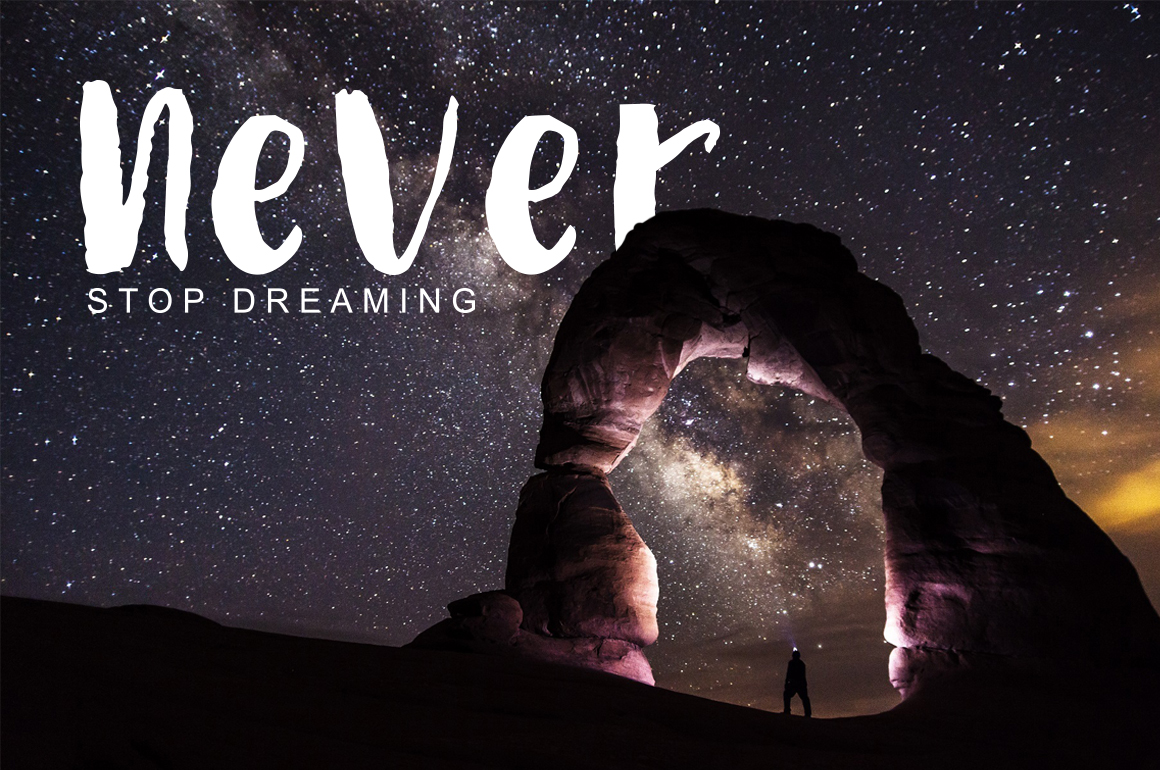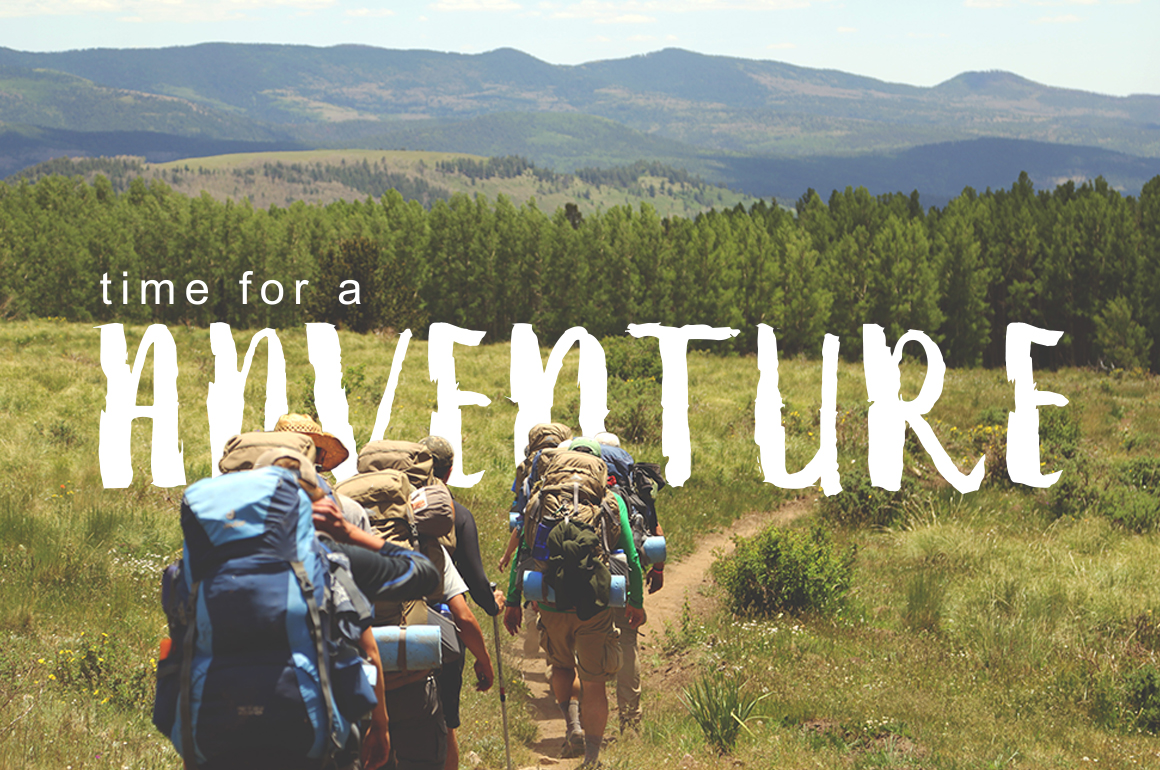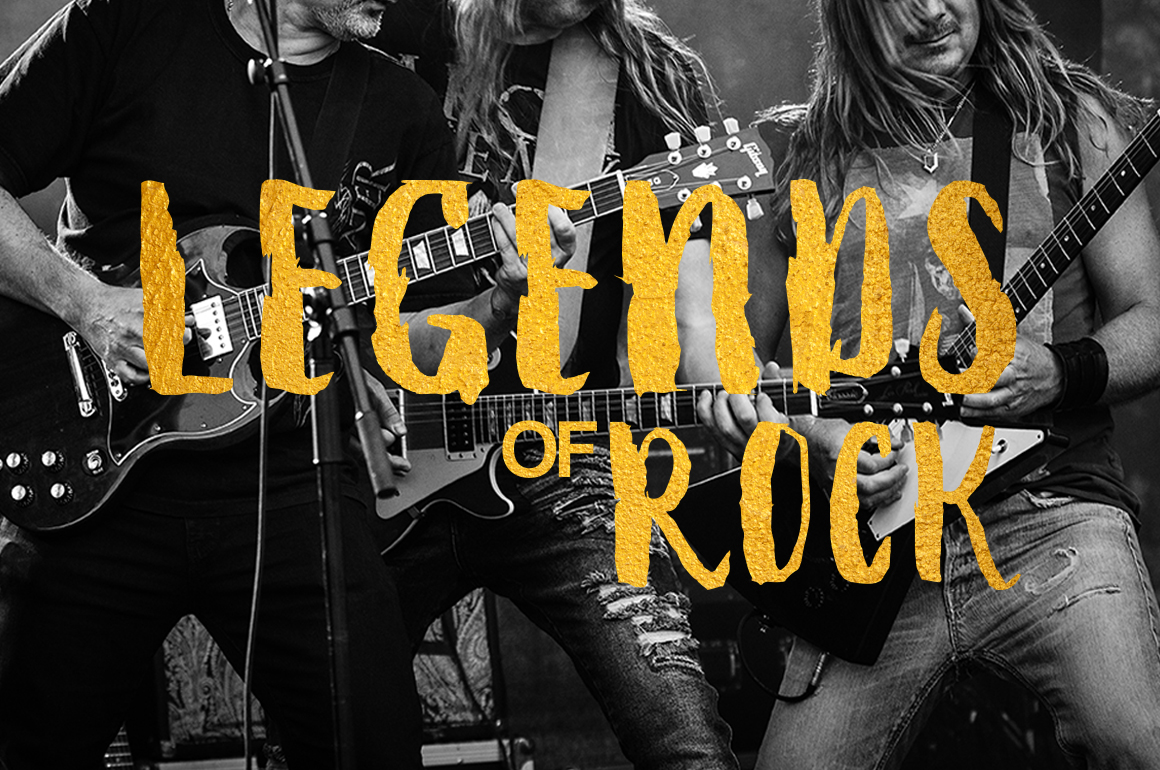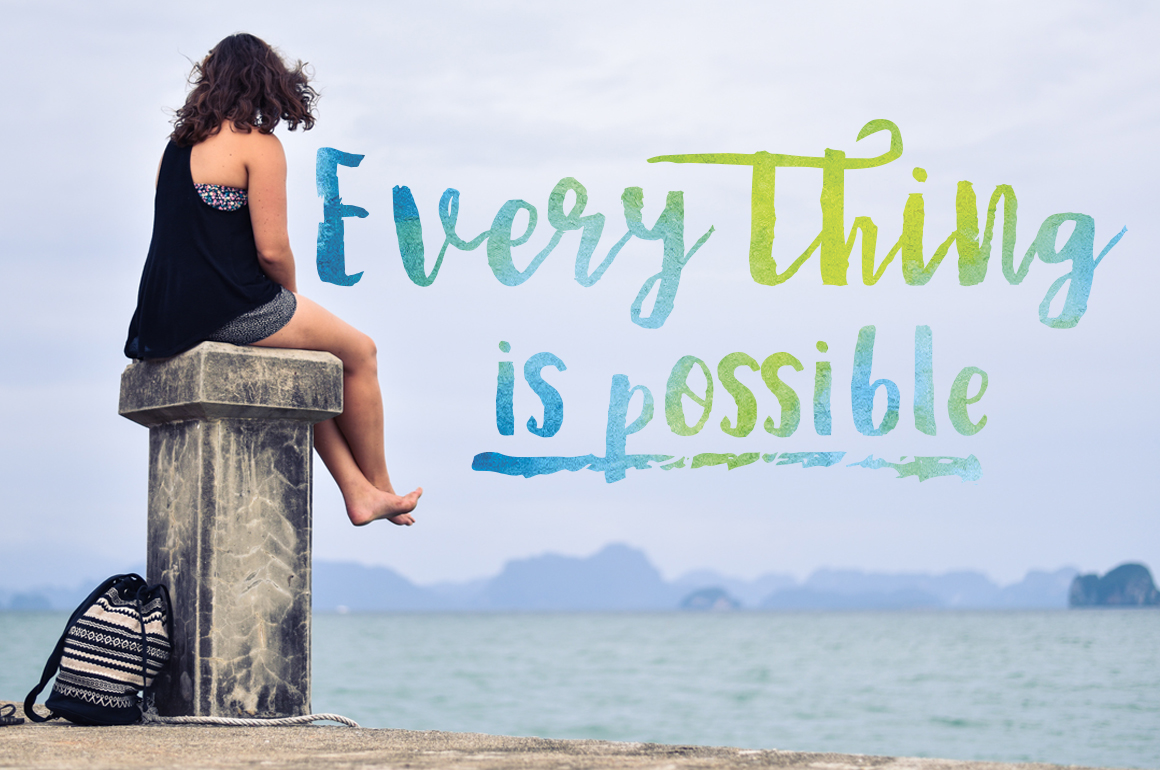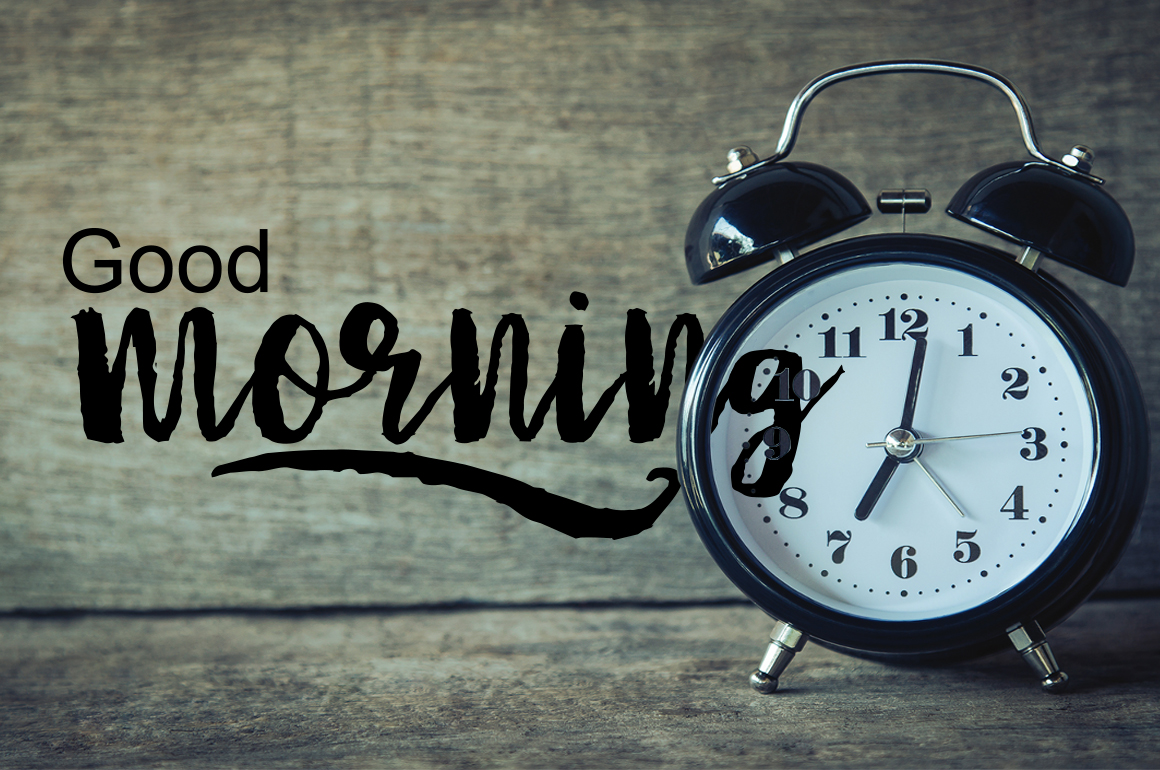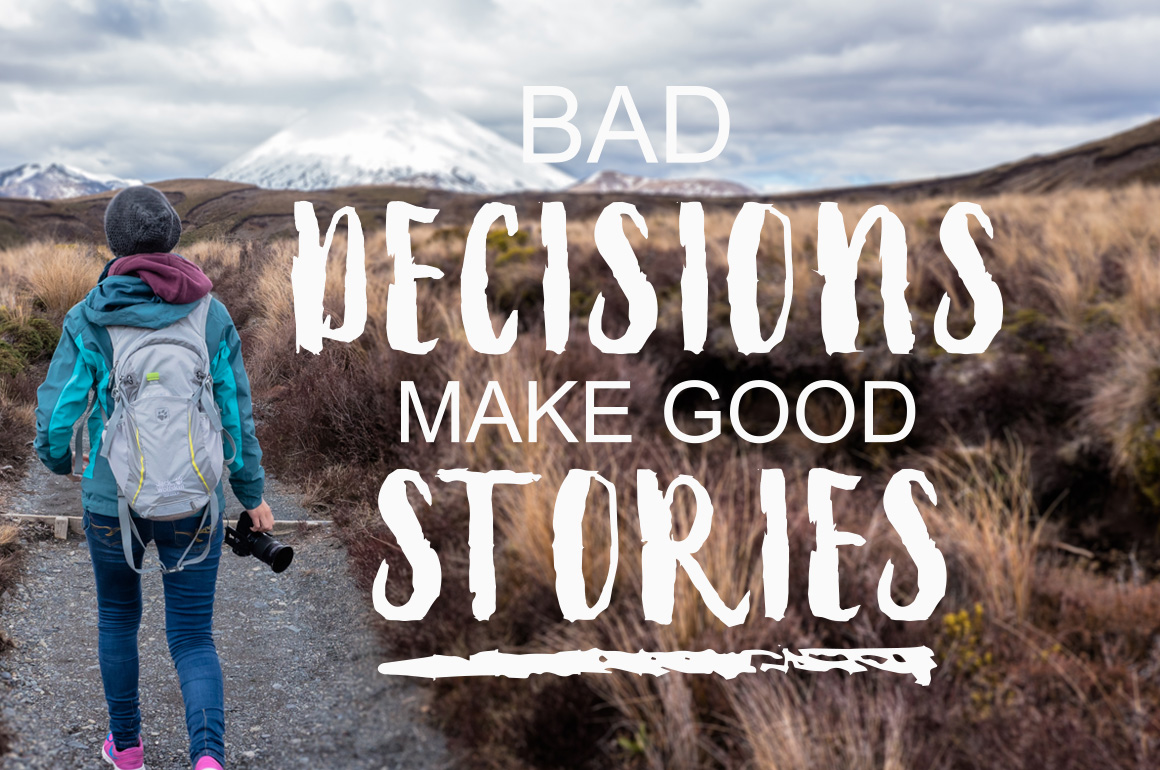
Debt Collectors Font: A Modern Handwritten Calligraphy Font for Creative Projects
Are you a designer or crafter looking for a unique and stylish font to elevate your creative projects? Look no further than the Debt Collectors Font, a modern handwritten calligraphy font that is sure to impress. This stunning script is suitable for a great range of different projects, from branding and advertising to packaging and digital media.
What is Debt Collectors Font?
Debt Collectors Font is a modern handwritten calligraphy font that is designed to add a touch of elegance and sophistication to any project. With its flowing lines and intricate lettering, this font is perfect for creating beautiful and eye-catching designs. Whether you’re looking to create a logo, brochure, or social media graphic, Debt Collectors Font is the perfect choice.
Key Features of Debt Collectors Font
- Modern Handwritten Calligraphy: Debt Collectors Font is a modern take on traditional calligraphy, with a fresh and contemporary feel.
- Suitable for a Range of Projects: This font is versatile and can be used for a variety of projects, from branding and advertising to packaging and digital media.
- Elegant and Sophisticated: Debt Collectors Font adds a touch of elegance and sophistication to any design, making it perfect for high-end brands and luxury products.
- Easy to Read: Despite its intricate lettering, Debt Collectors Font is easy to read and understand, making it perfect for body text and headlines.
Benefits of Using Debt Collectors Font
There are many benefits to using Debt Collectors Font in your creative projects. Here are just a few:
- Stand Out from the Crowd: With its unique and stylish design, Debt Collectors Font is sure to make your project stand out from the crowd.
- Professional and Polished: This font adds a touch of professionalism and polish to any design, making it perfect for businesses and brands.
- Flexibility: Debt Collectors Font can be used for a variety of projects, from print to digital media.
Project Ideas for Debt Collectors Font
Debt Collectors Font is a versatile font that can be used for a wide range of projects. Here are a few ideas to get you started:
- Branding and Advertising: Use Debt Collectors Font to create eye-catching logos, brochures, and social media graphics.
- Packaging: Add a touch of elegance and sophistication to your product packaging with Debt Collectors Font.
- Digital Media: Use this font to create beautiful and engaging digital media, such as website headers and social media posts.
- Stationery: Create beautiful and elegant stationery, such as letterheads and business cards, with Debt Collectors Font.
Tips for Using Debt Collectors Font
Here are a few tips for using Debt Collectors Font in your creative projects:
- Use it Sparingly: While Debt Collectors Font is beautiful and elegant, it can be overwhelming if used too much. Use it sparingly to create a sense of luxury and sophistication.
- Pair it with Other Fonts: Pair Debt Collectors Font with other fonts to create a unique and stylish design.
- Experiment with Colors: Experiment with different colors to find the perfect combination that complements Debt Collectors Font.
Debt Collectors Font is a modern handwritten calligraphy font that is perfect for designers and crafters looking to add a touch of elegance and sophistication to their creative projects. With its flowing lines and intricate lettering, this font is sure to impress. Whether you’re looking to create a logo, brochure, or social media graphic, Debt Collectors Font is the perfect choice.